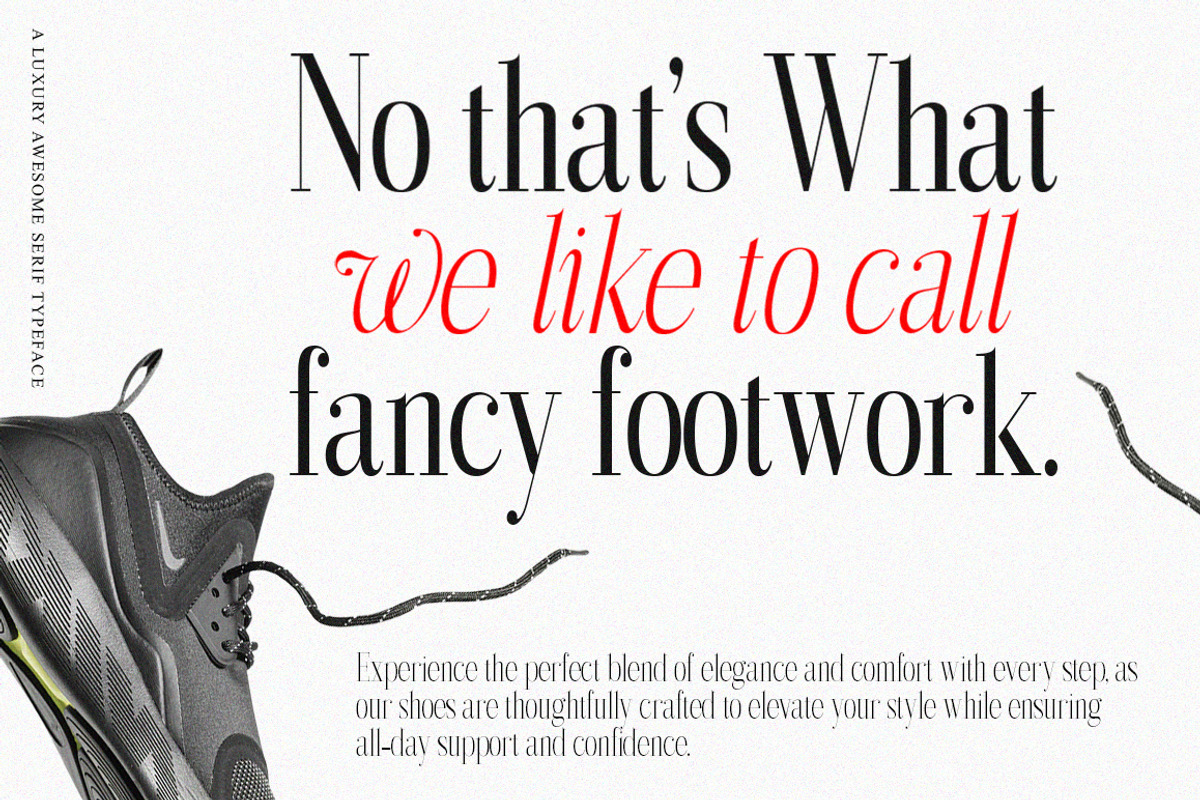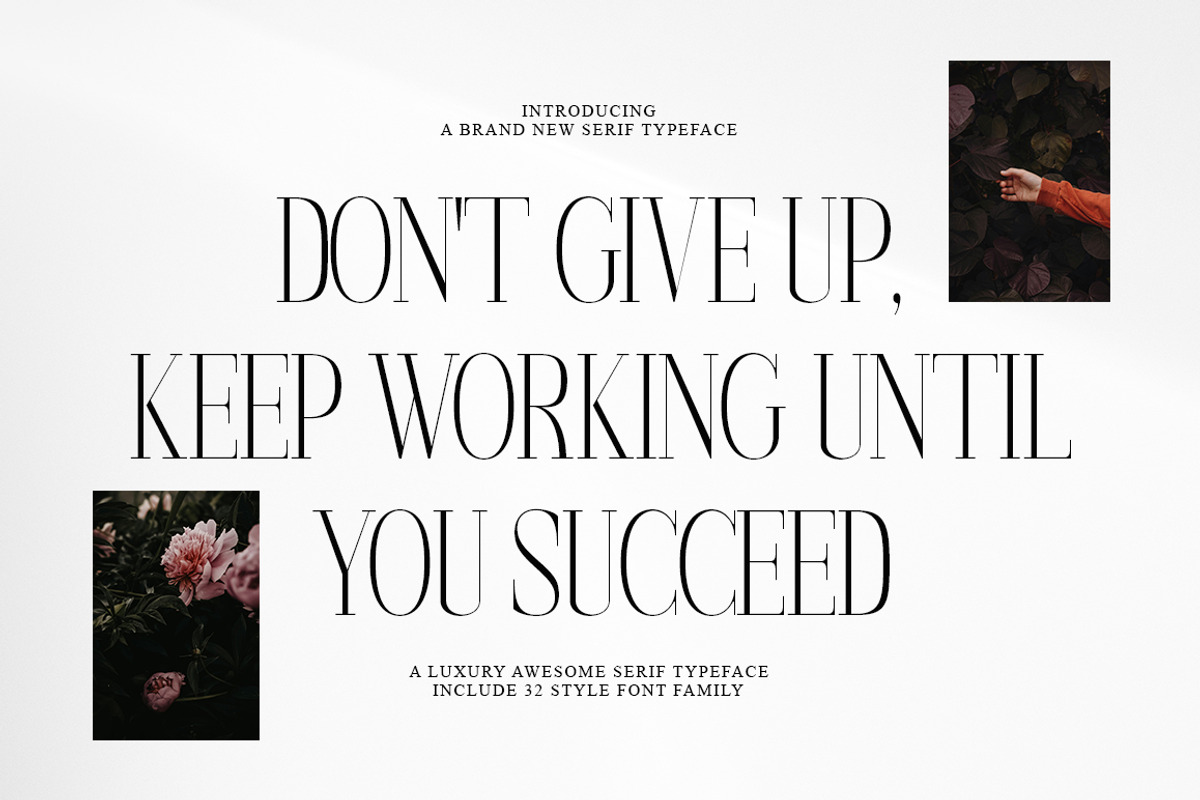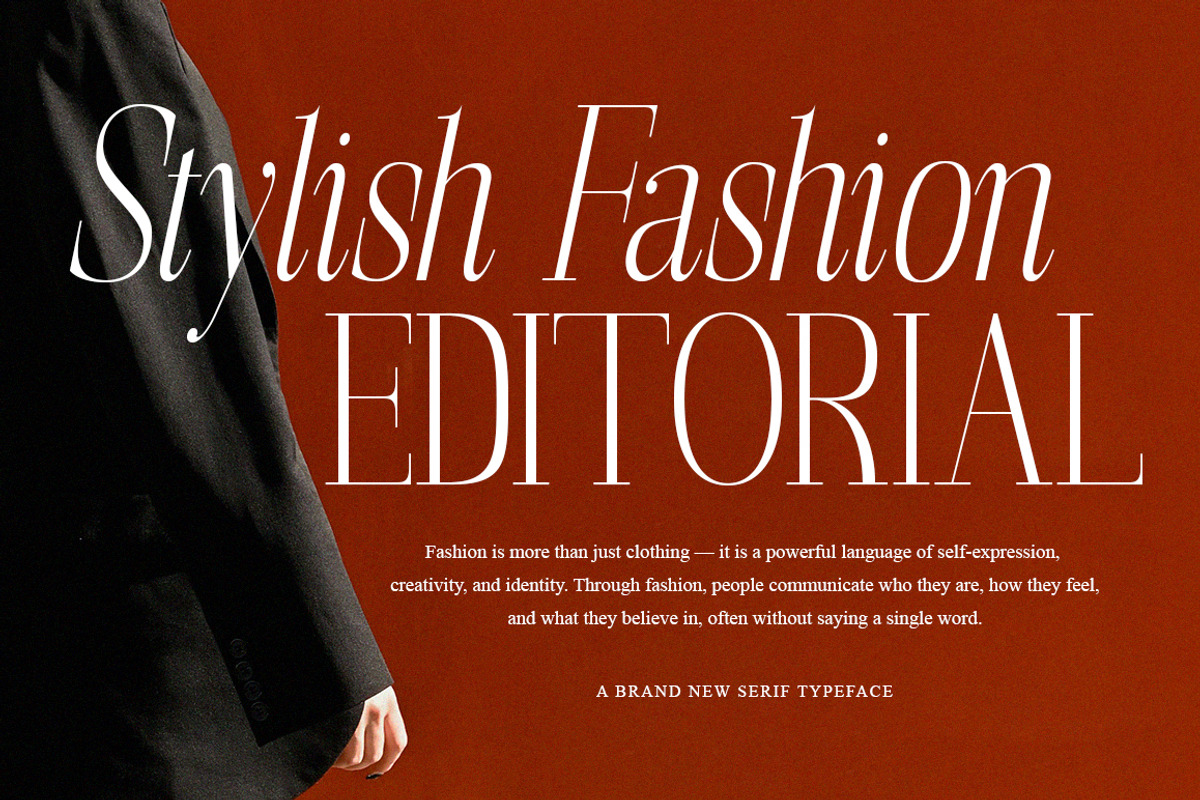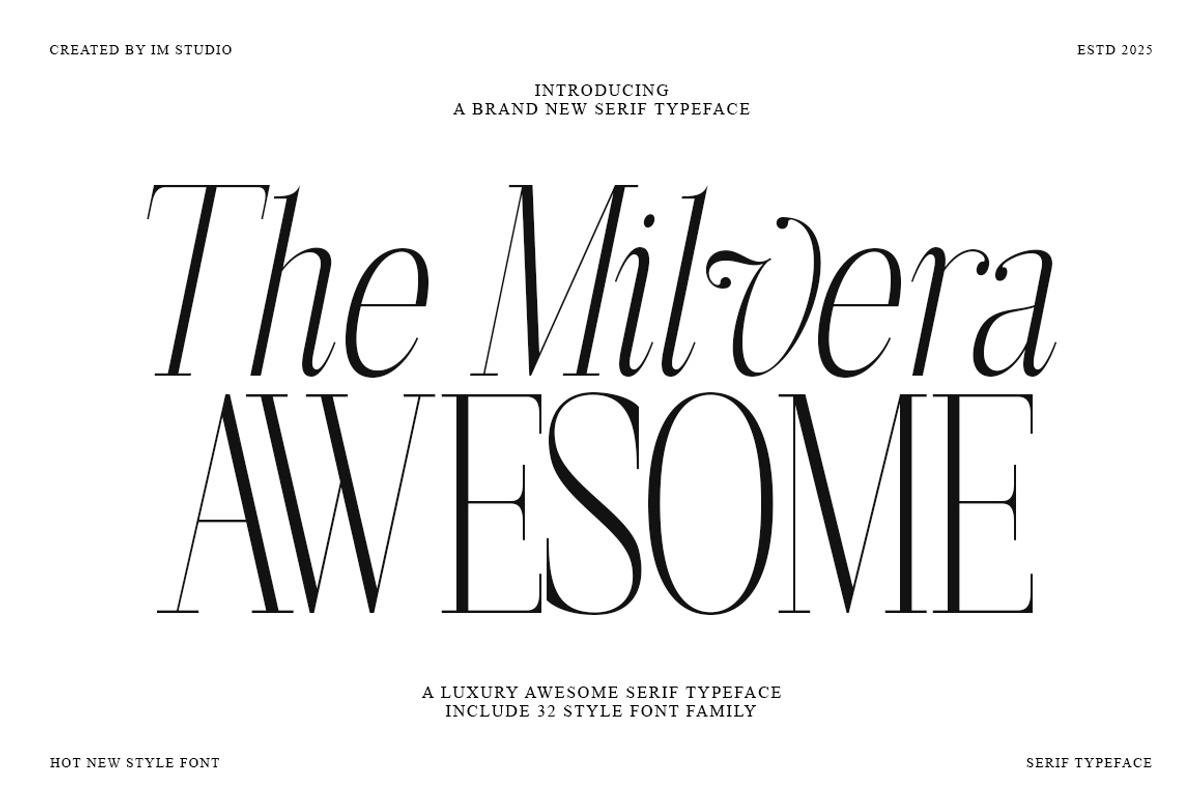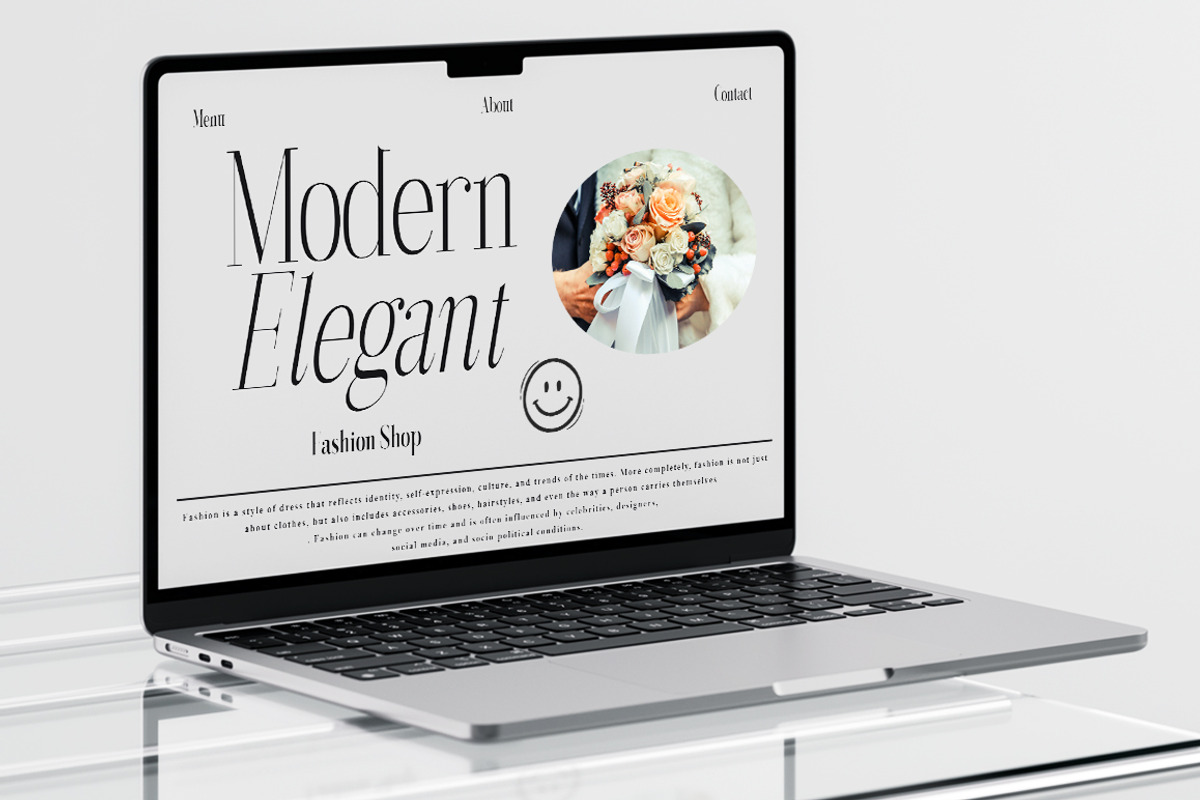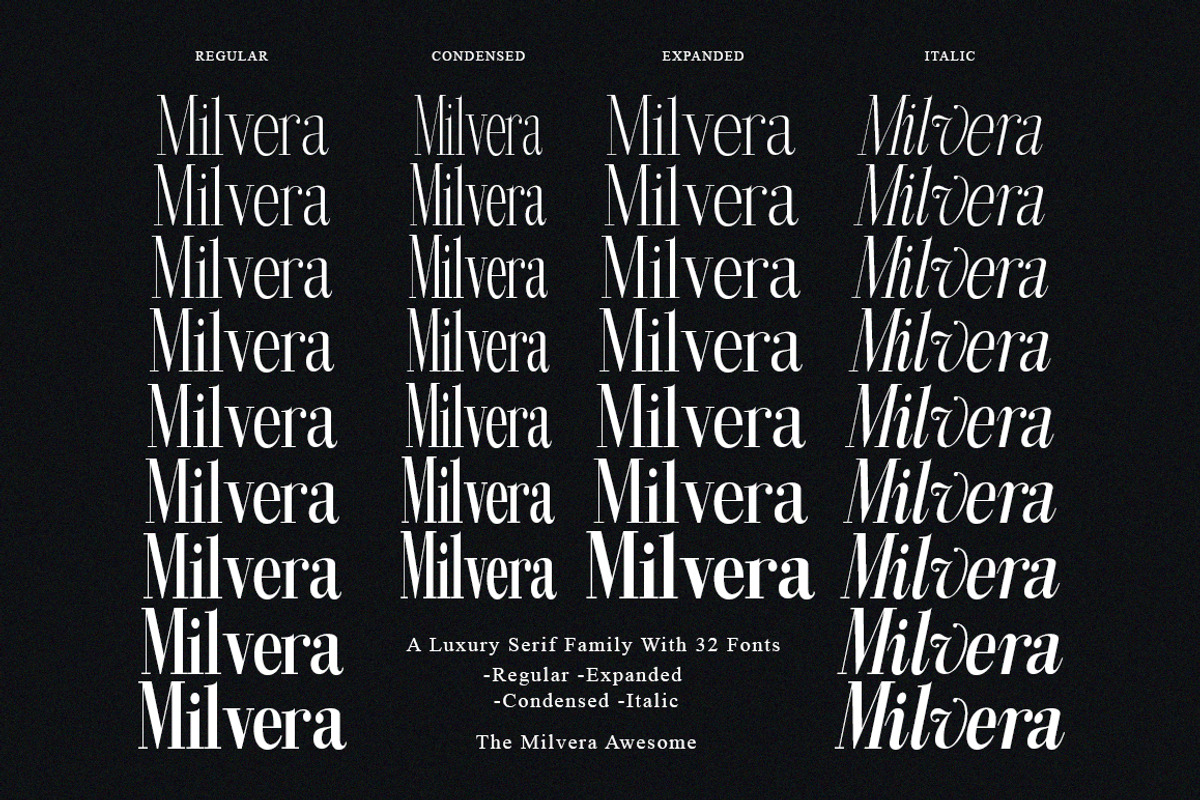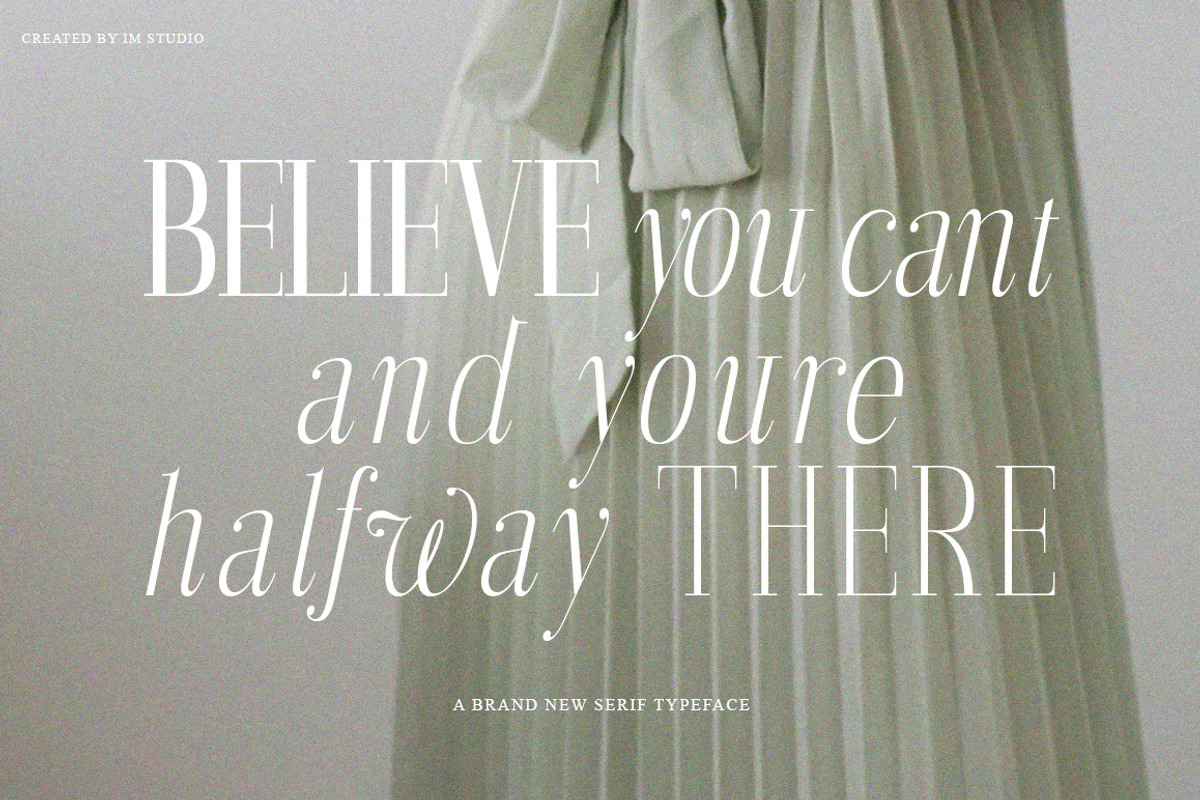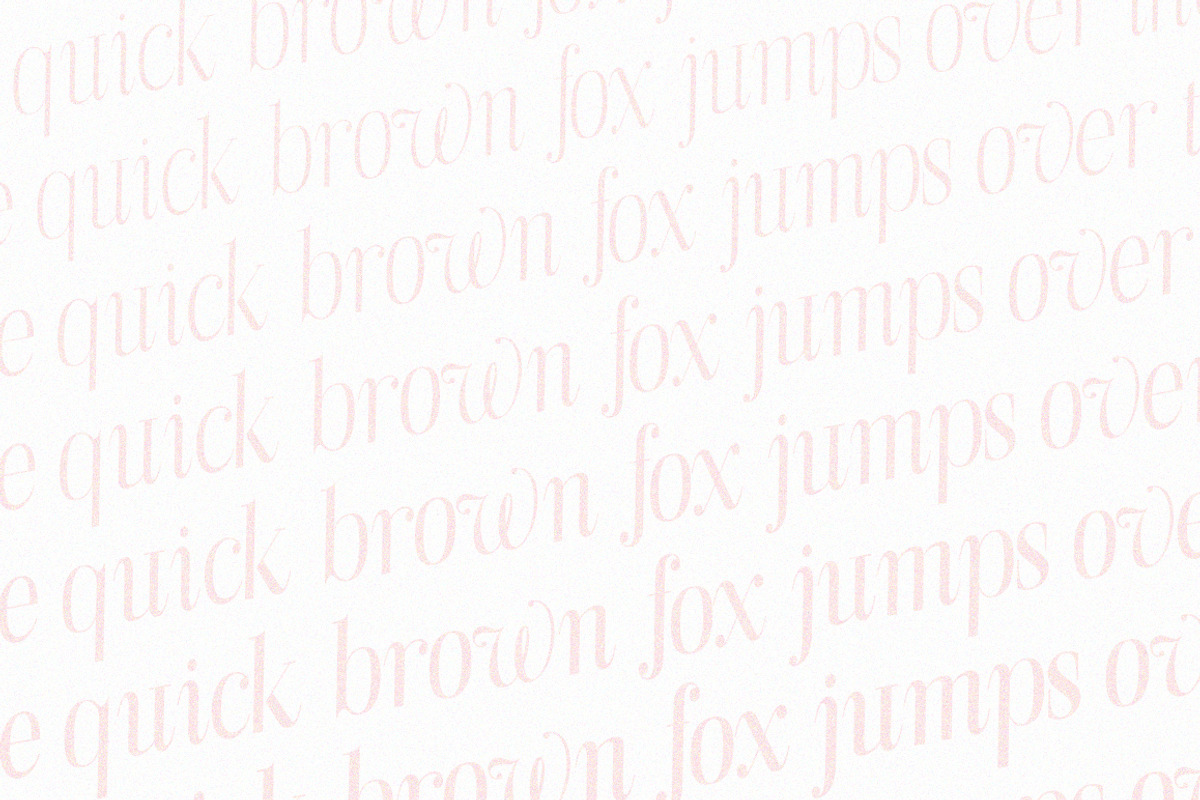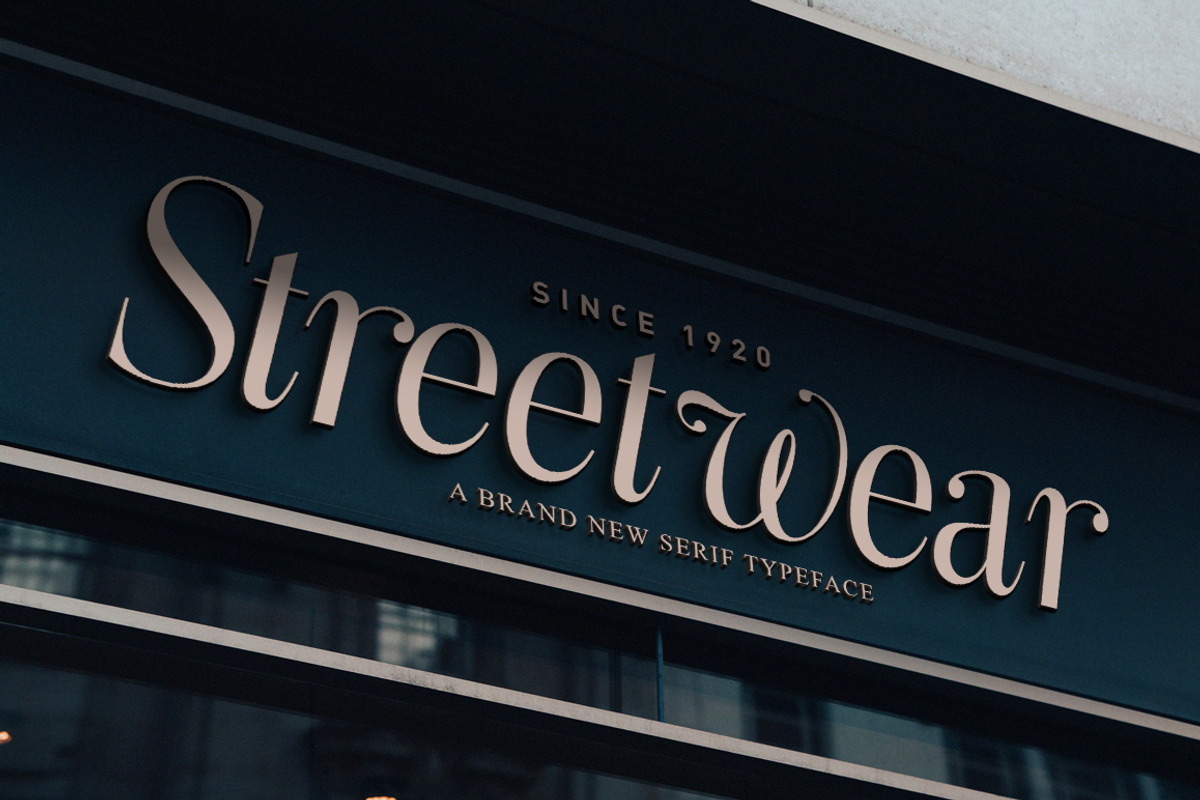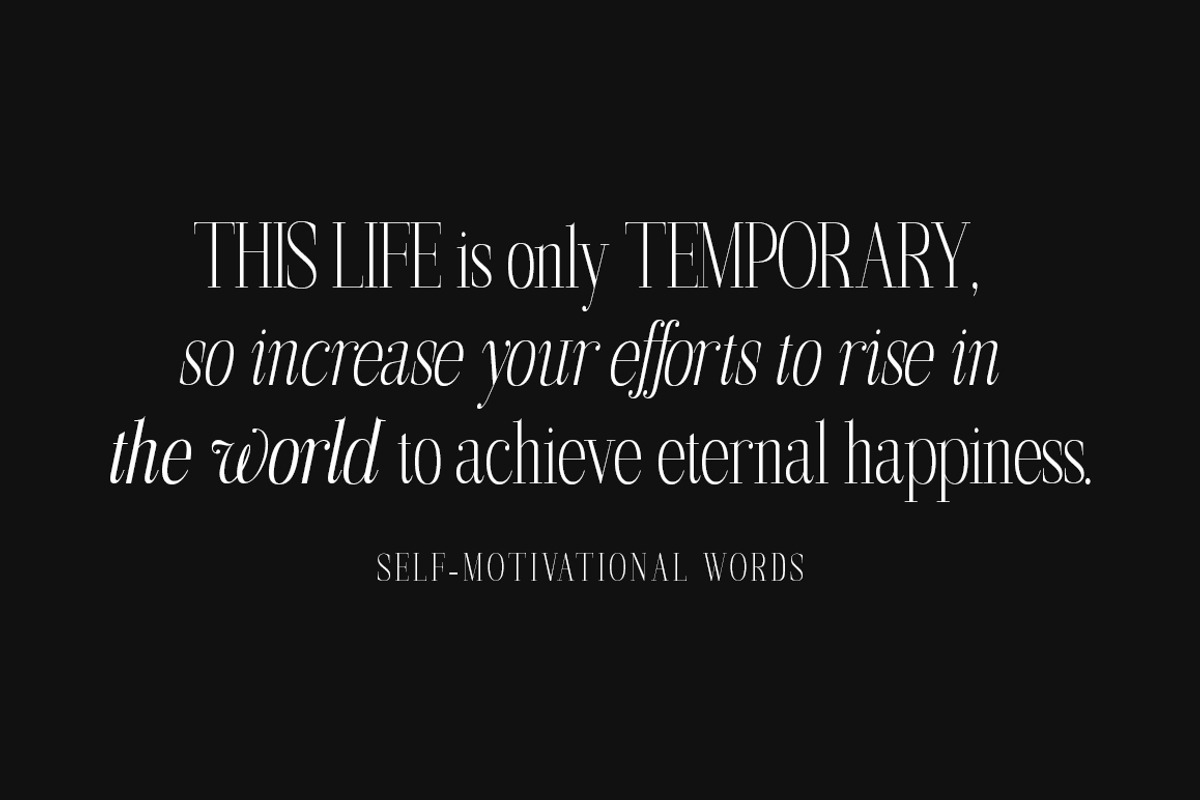
The Milvera Awesome (32 Fonts)
The Milvera Awesome Serif | A Typeface for Timeless Elegance & Modern Expression
Discover The Milvera Awesome Serif, a sophisticated serif typeface that beautifully bridges classic refinement and modern design sensibility. Crafted with meticulous precision, Milvera brings together high-contrast strokes, graceful curves, and elegant proportions — creating a visual harmony that feels both luxurious and contemporary.
Perfect for editorial layouts, high-end branding, and digital experiences, The Milvera Awesome Serif adds a touch of timeless class to every project. Each character is thoughtfully designed to balance strength and beauty, while its true italics introduce fluidity and dynamic rhythm for a more expressive typographic experience.
Effortless Elegance: Clean lines, refined forms, and perfect balance for a timeless aesthetic.
OpenType Magic: Advanced typographic features, ligatures, and stylistic alternates for full creative control.
True Italic Styles: Designed from scratch to complement upright weights, enhancing visual flow and contrast.
Editorial & Publishing: Magazines, newspapers, and books that demand sophistication and readability.
Brand Identity & Logos: Create distinctive, upscale branding with an unforgettable serif touch.
Web & Digital Design: Clean contrast ensures crisp, elegant legibility across all devices.
Packaging & Print: Add a luxurious presence to labels, posters, or stationery.
Invitations & Collateral: Perfect for wedding suites, greeting cards, and formal correspondence.
32 fonts across 9 weights (Regular and Italic styles) 7 weights (Expanded and Condensed)
Step into the world of The Milvera Awesome Serif — where timeless beauty meets modern versatility. Bring your designs to life with elegance, confidence, and impeccable style.